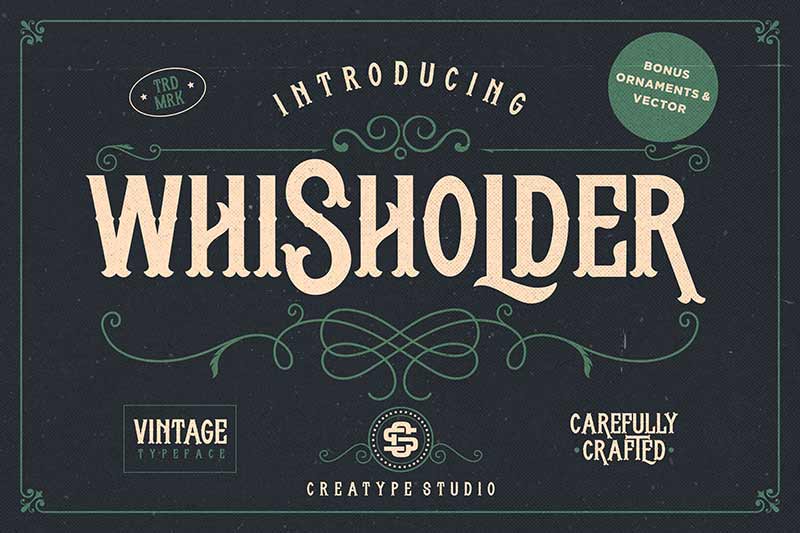
Whisholder Vintage Retro Typeface – Freebie
TL;DR
- Free vintage retro typeface with Victorian touch
- Perfect for logos, branding, packaging, invitations & more
Whisholder Vintage Retro Typeface
Whisholder free commercial font is a free vintage font and retro typeface inspired by vintage lettering signs and art. Victorian touch that looks solid and bold, comes in adventure & camp vector that is ready to use and to create vintage letterings.
Whisholder is perfect for branding projects, logos, wedding designs, social media posts, advertisements, product packaging, product designs, labels, photography, watermarks, invitations, stationery, and any projects that need handwriting taste.
A free vintage font– Whisholder is a great typeface for achieving an authentic vintage aesthetic, as seen in the display images.
Preview of Whisholder Vintage Retro Typeface Font:
Is Whisholder suitable for logo design?
Yes. Its bold retro styling makes it an excellent choice for logos and visual identities.
Is the font suitable for print projects?
Yes. It works well for posters, flyers, brochures, signage, labels, and packaging materials.
Can I use Whisholder for social media content?
Yes. The font is ideal for creating eye-catching social media graphics and promotional content.